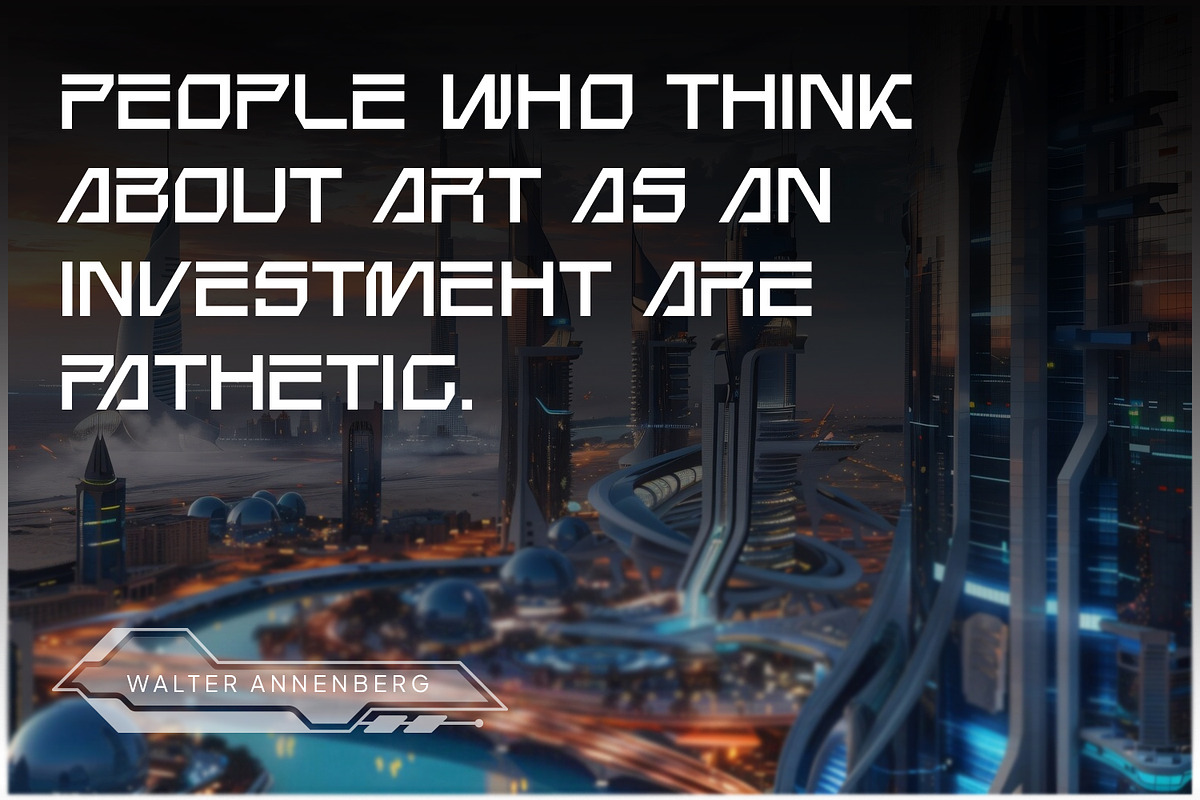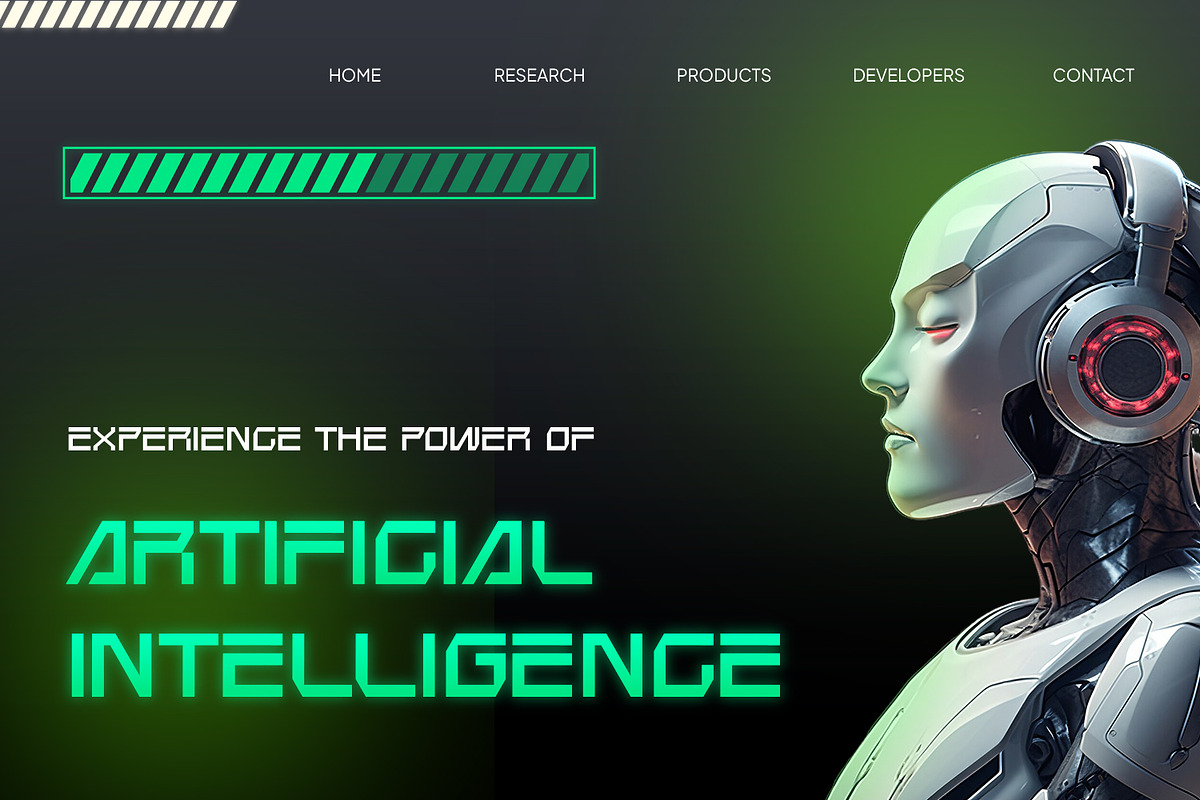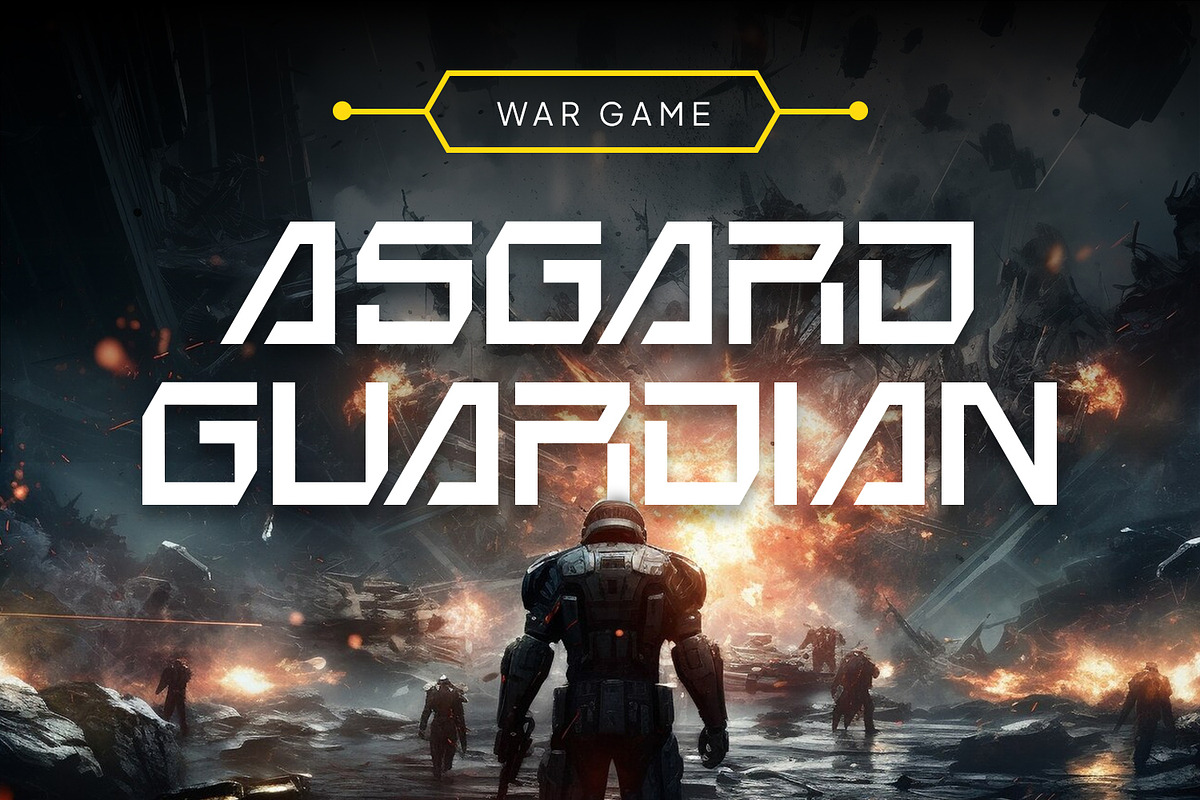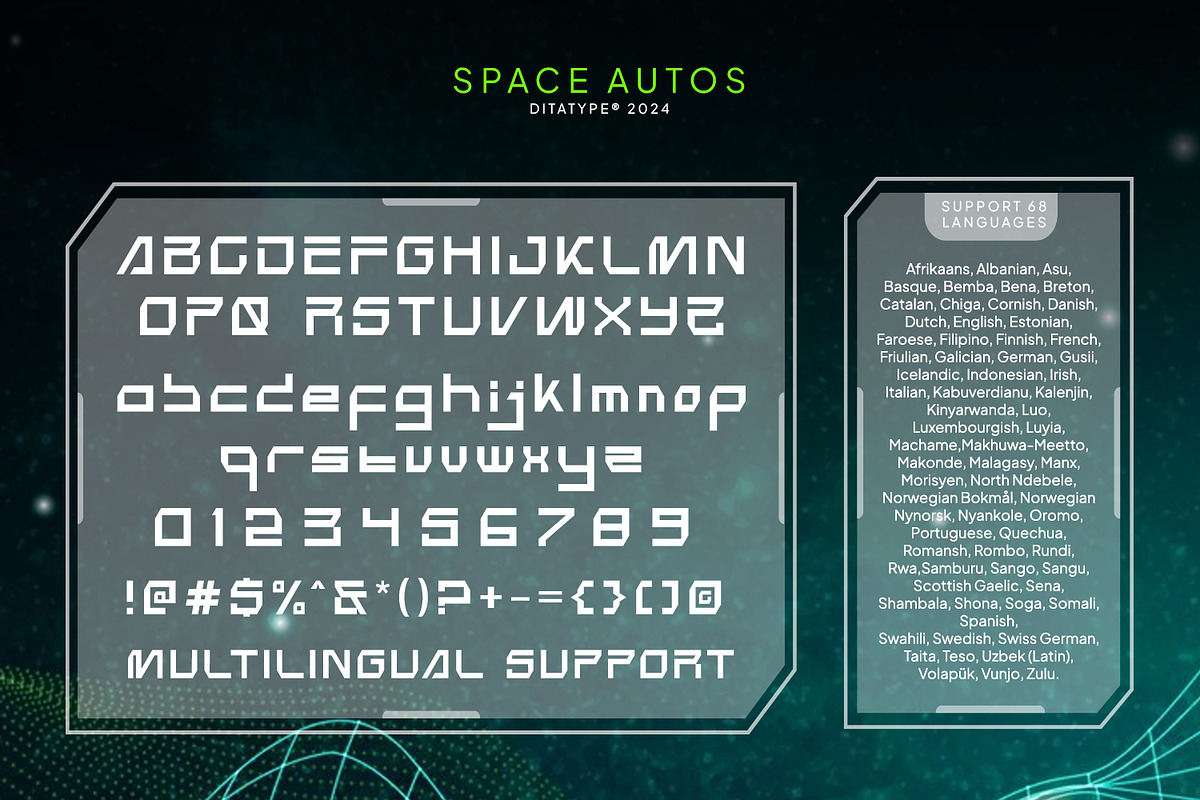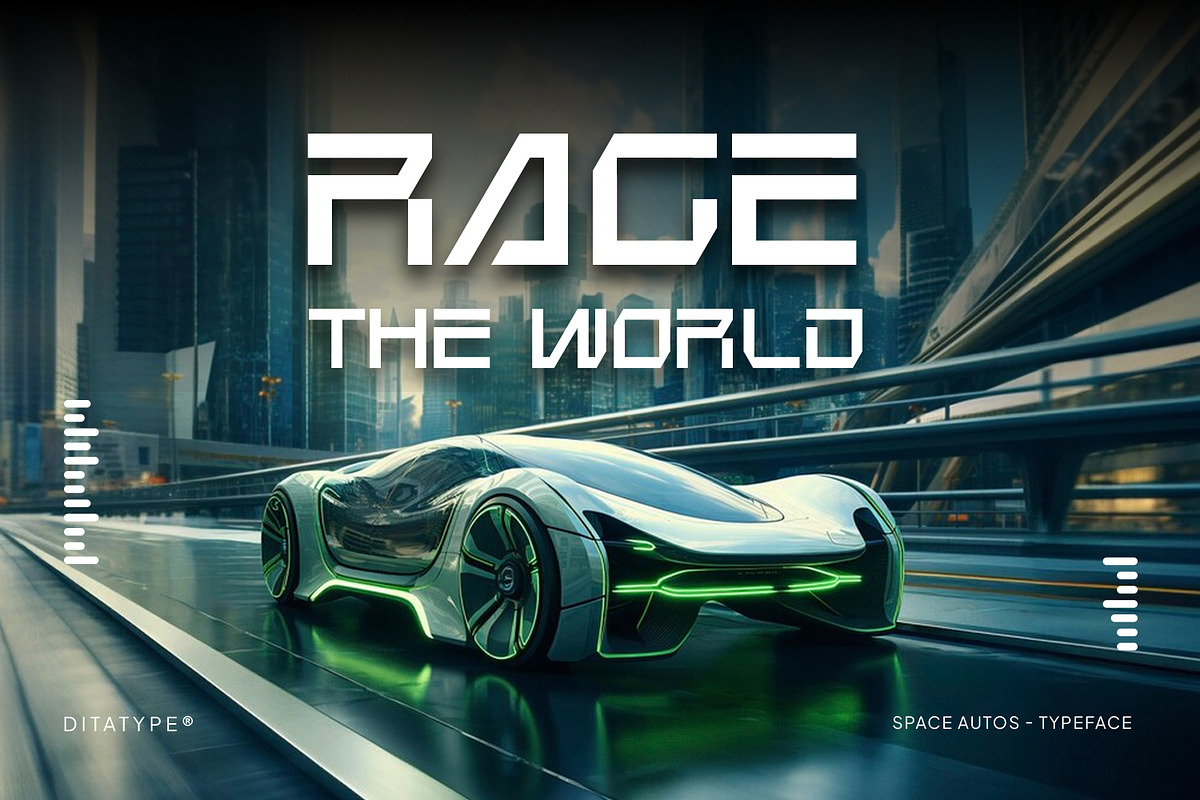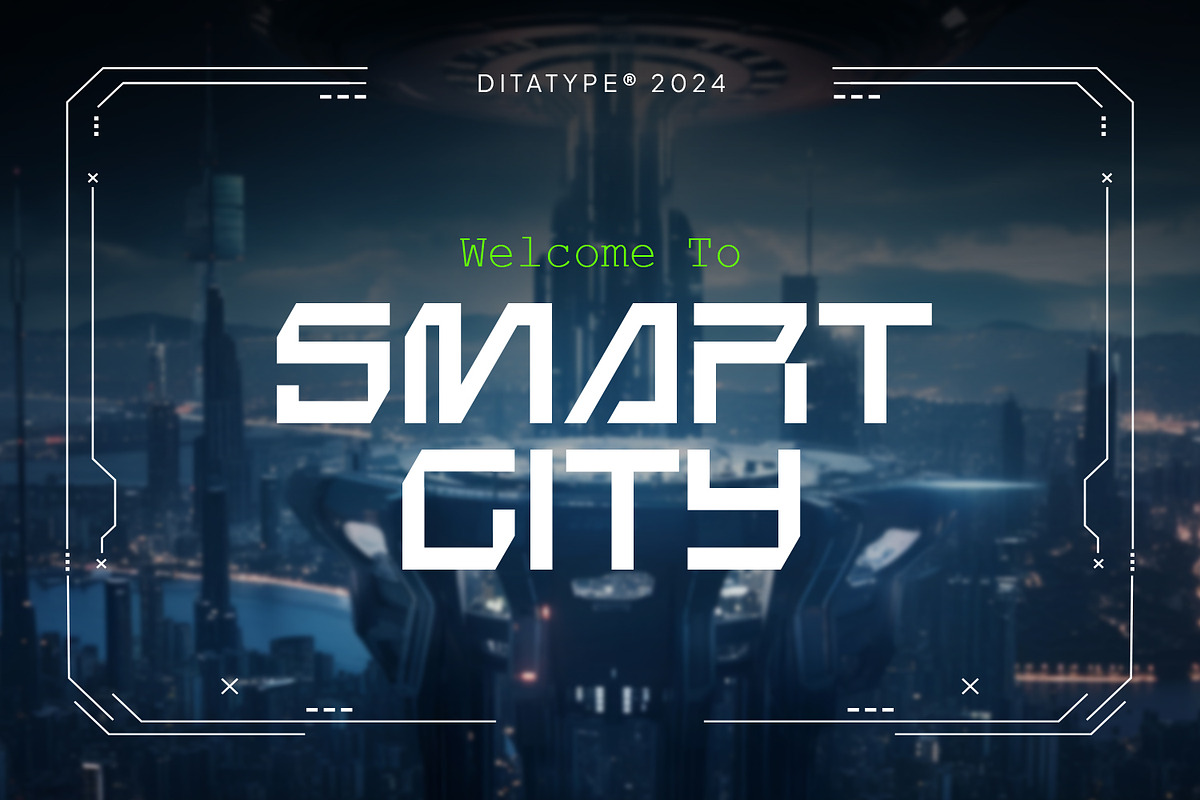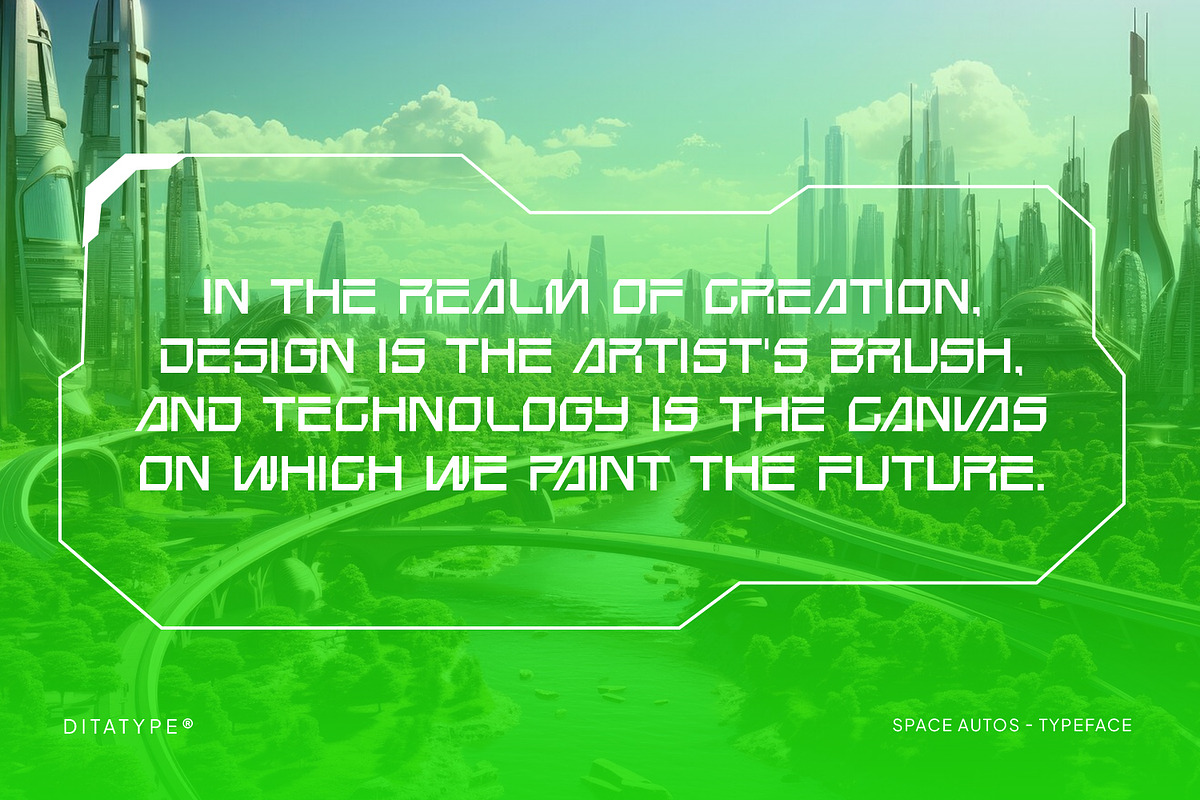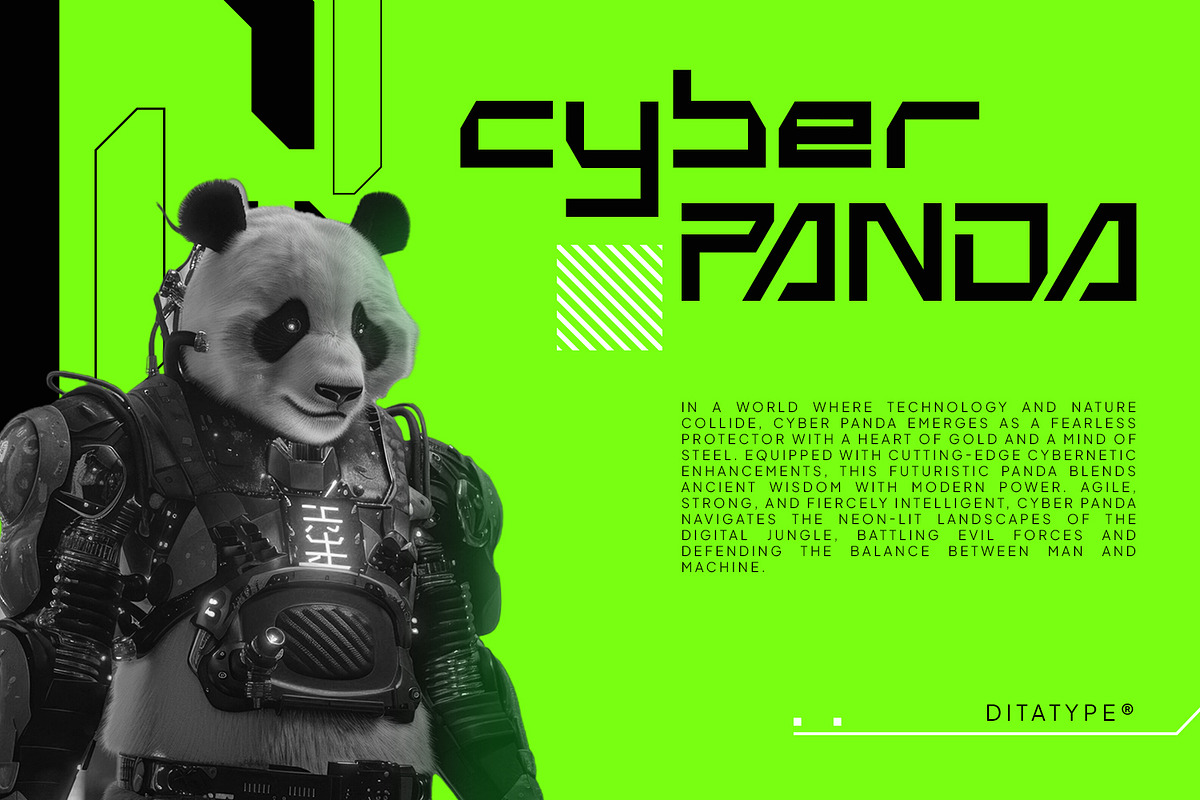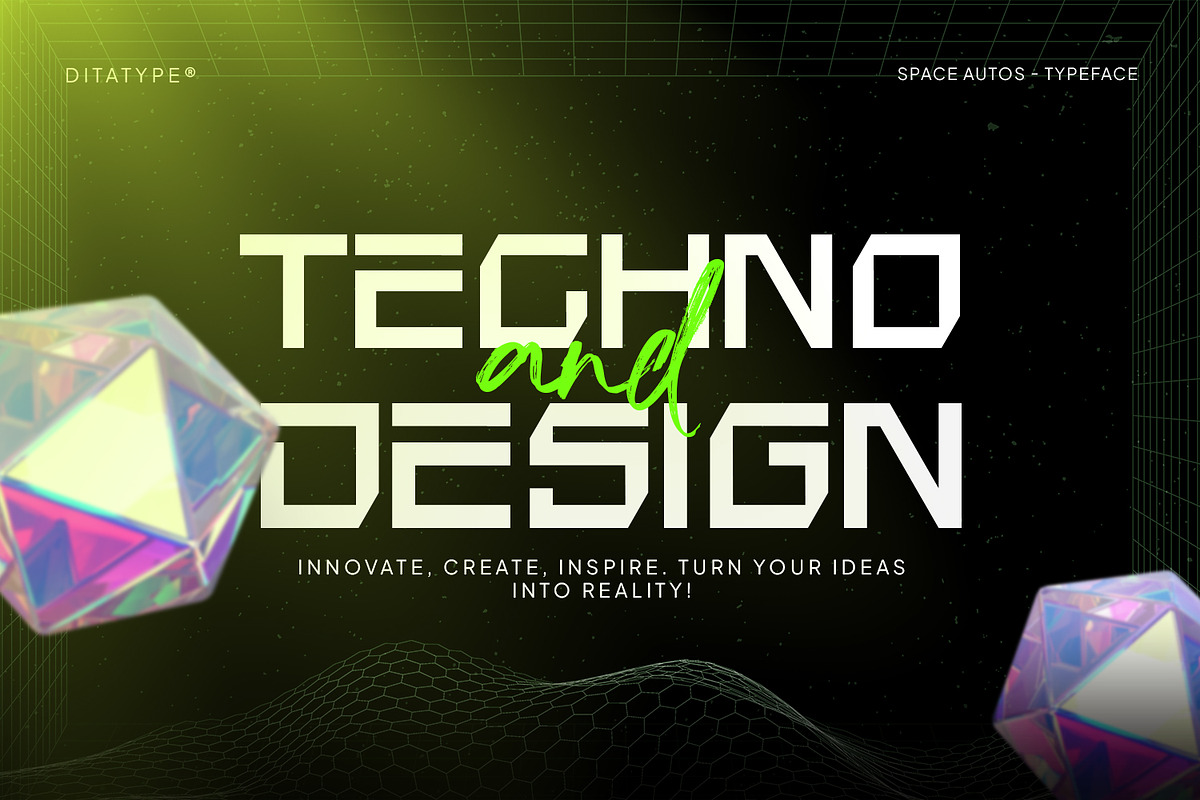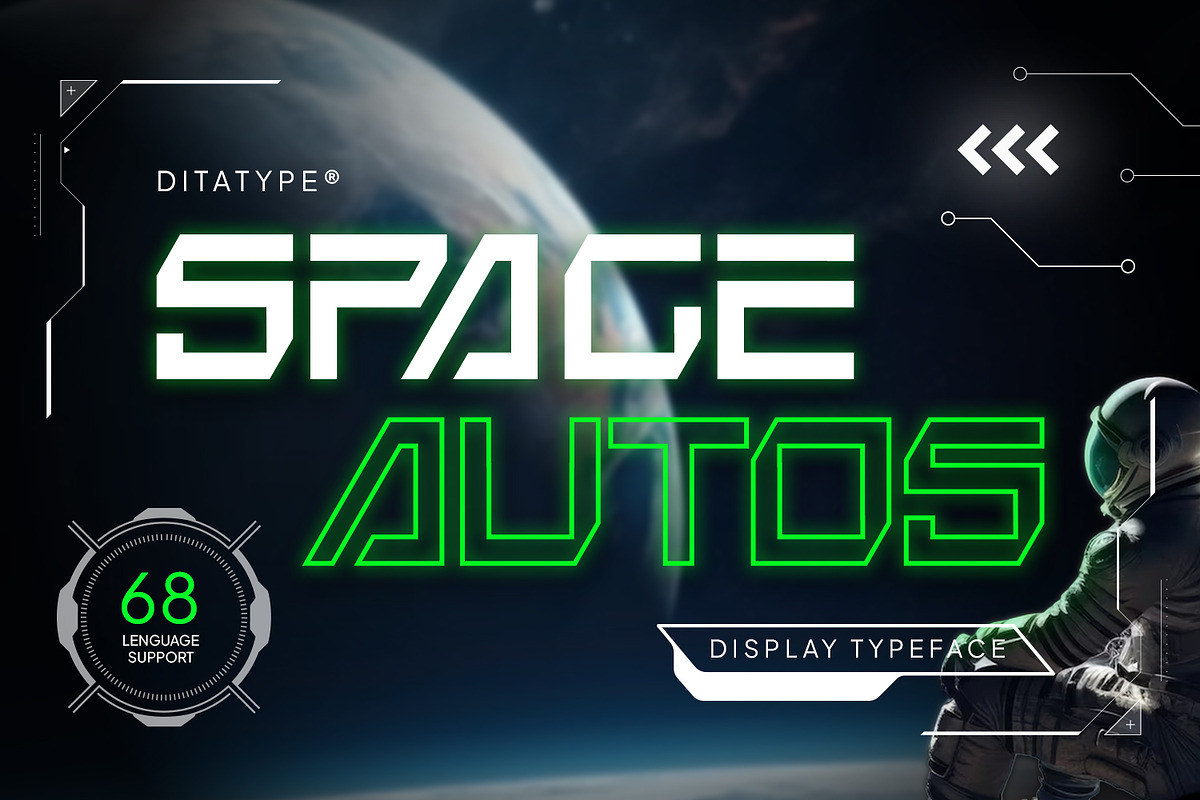
Space Autos
Introducing Space Autos – a sleek, futuristic display font designed to make a striking impression. Presented in all caps with a balanced weight that’s not too thick, Space Autos combines sharp, angular corners with a cutting-edge style. Space Autos delivers a clean, forward-looking look that stands out in any space. In addition, enjoy the features here.
Space Autos fits in logos, posters, flyers, branding materials, print media, editorial layouts, and many more designs. Find out more ways to use this font by taking a look at the font preview.